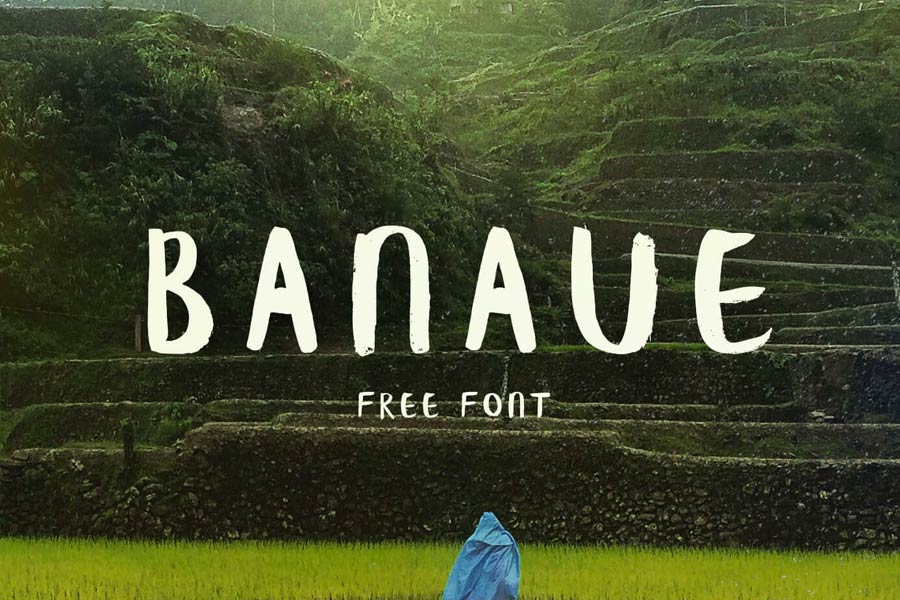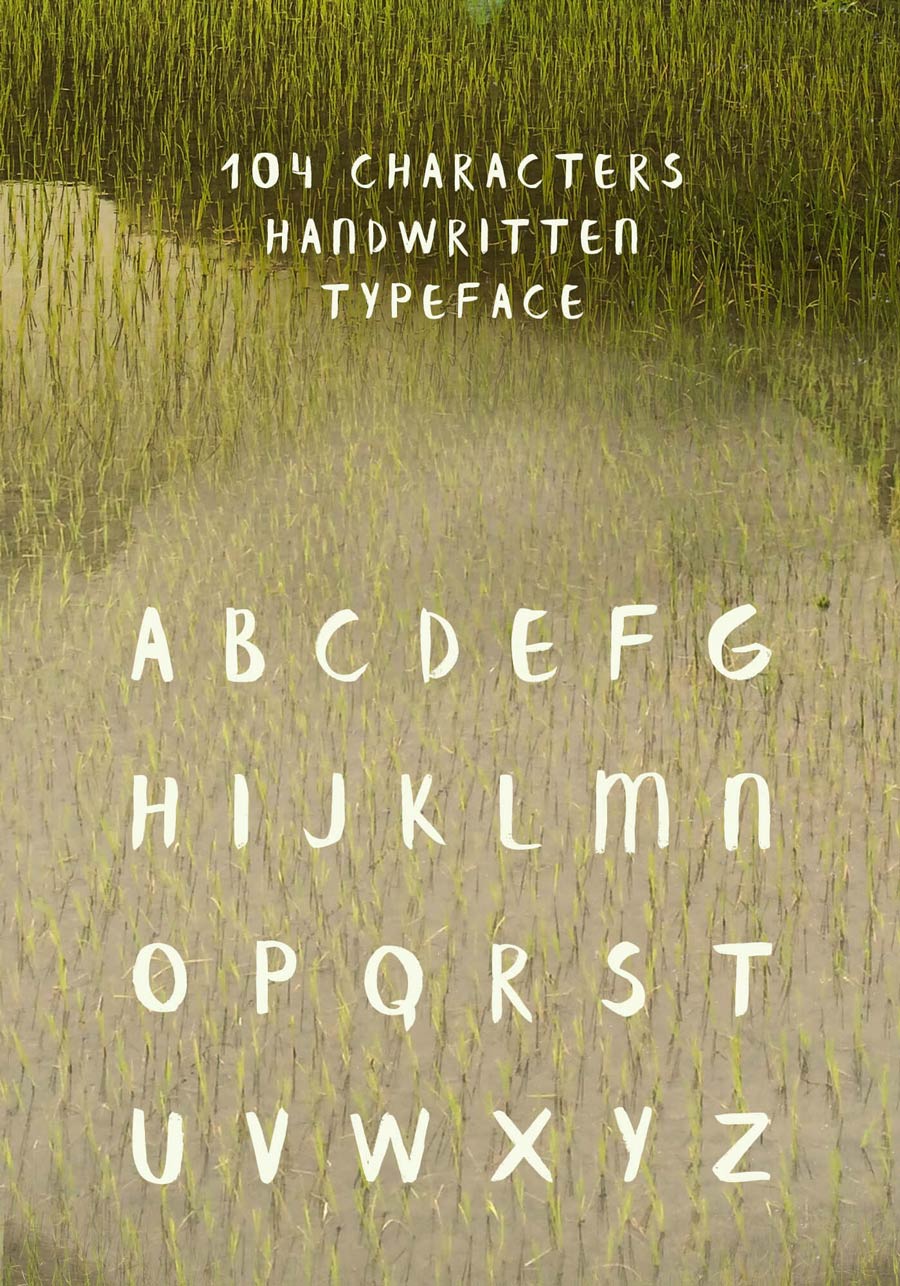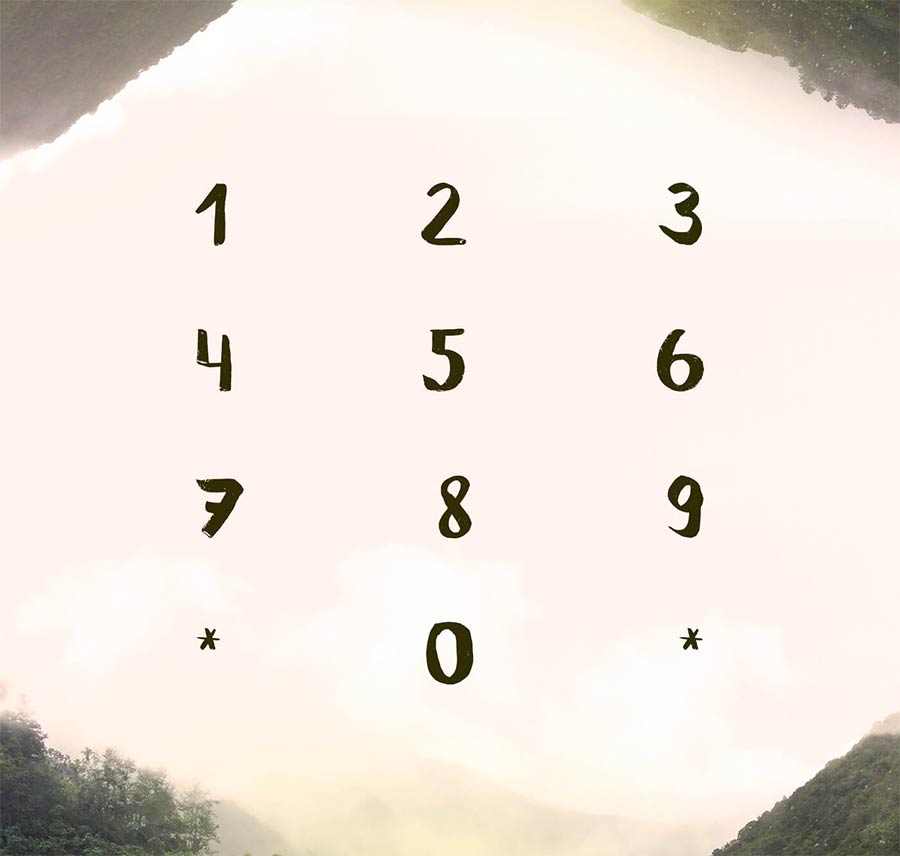
Banaue is an all-capital handwritten brush font for a homemade look that is free to download. It comes with limited sets of glyphs, only 104 in total. The name “Banaue” comes from Philippines where it’s a name of a place in the north with vast natural landscapes with mountains and rice terraces.
- Designer: Ieva Mezule